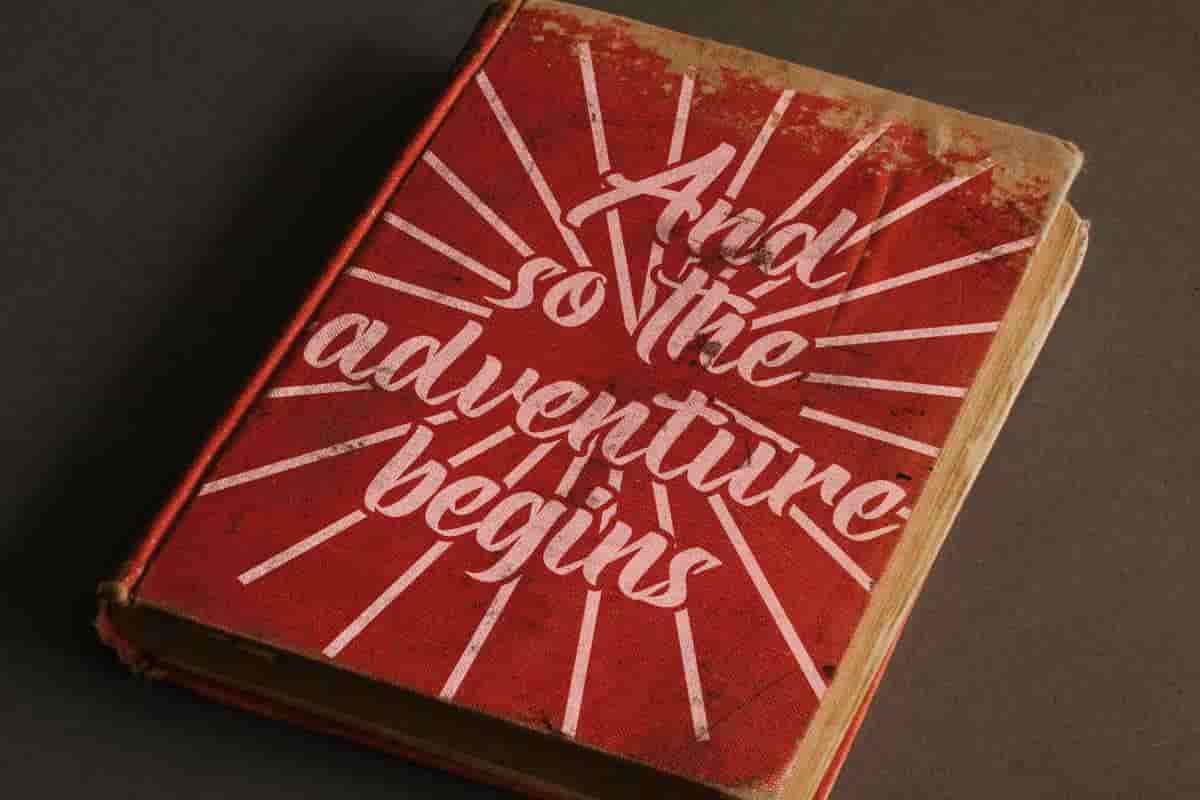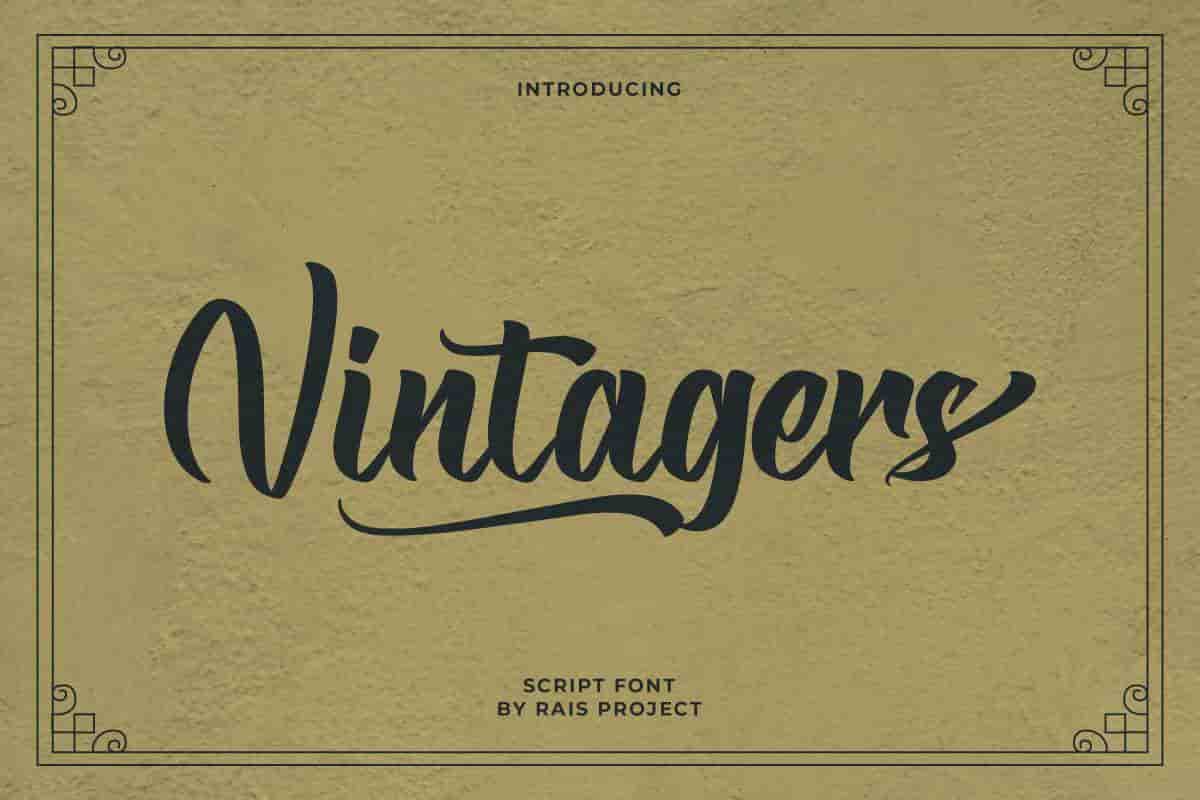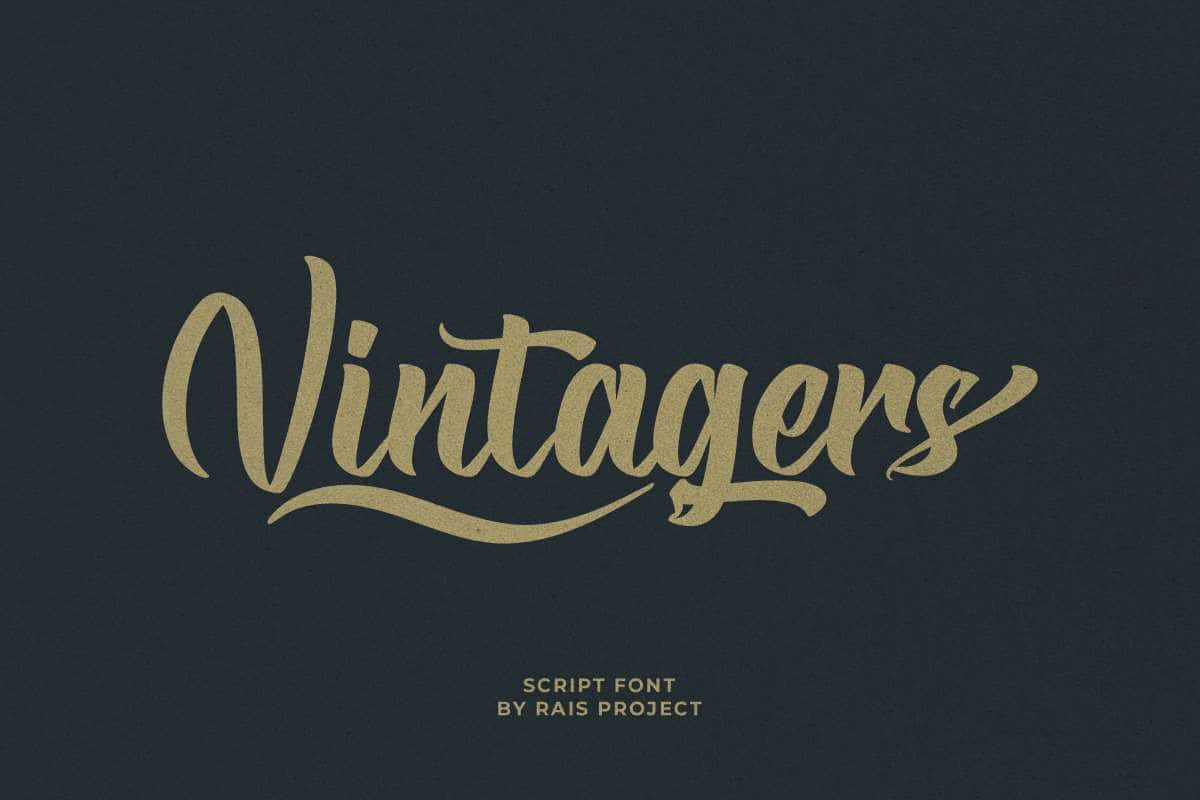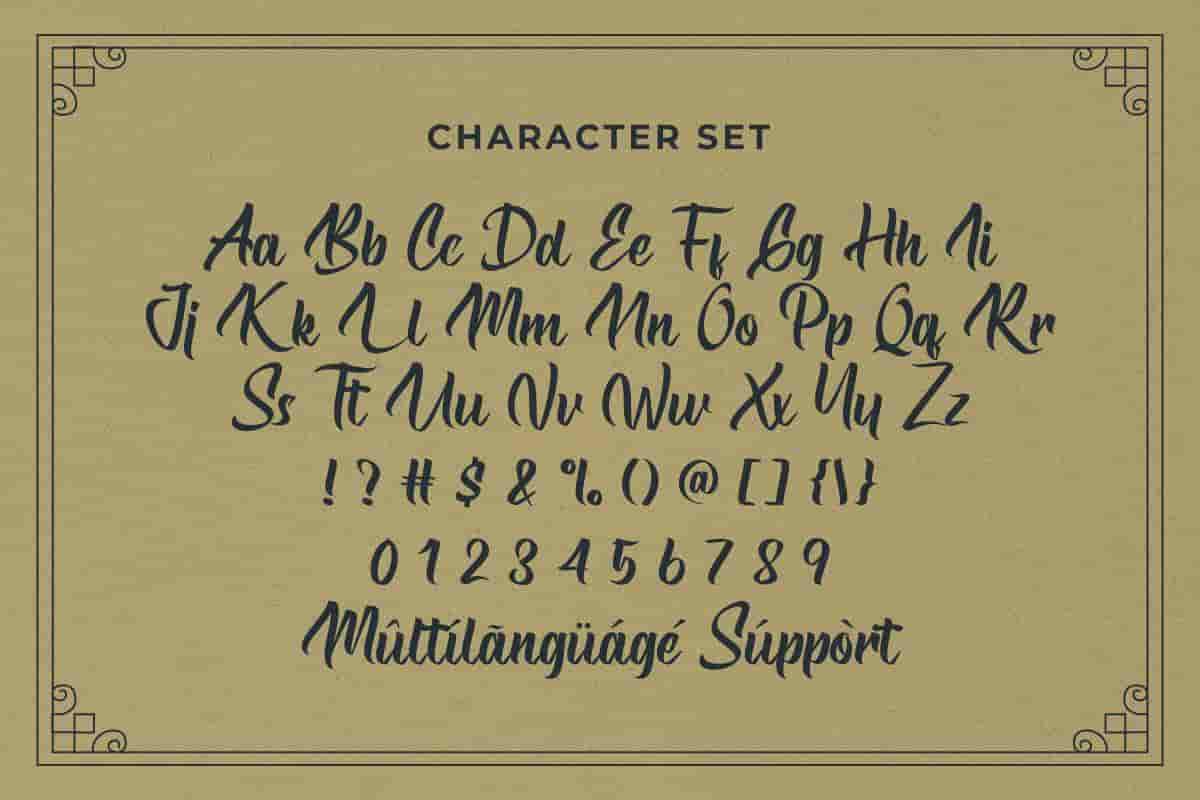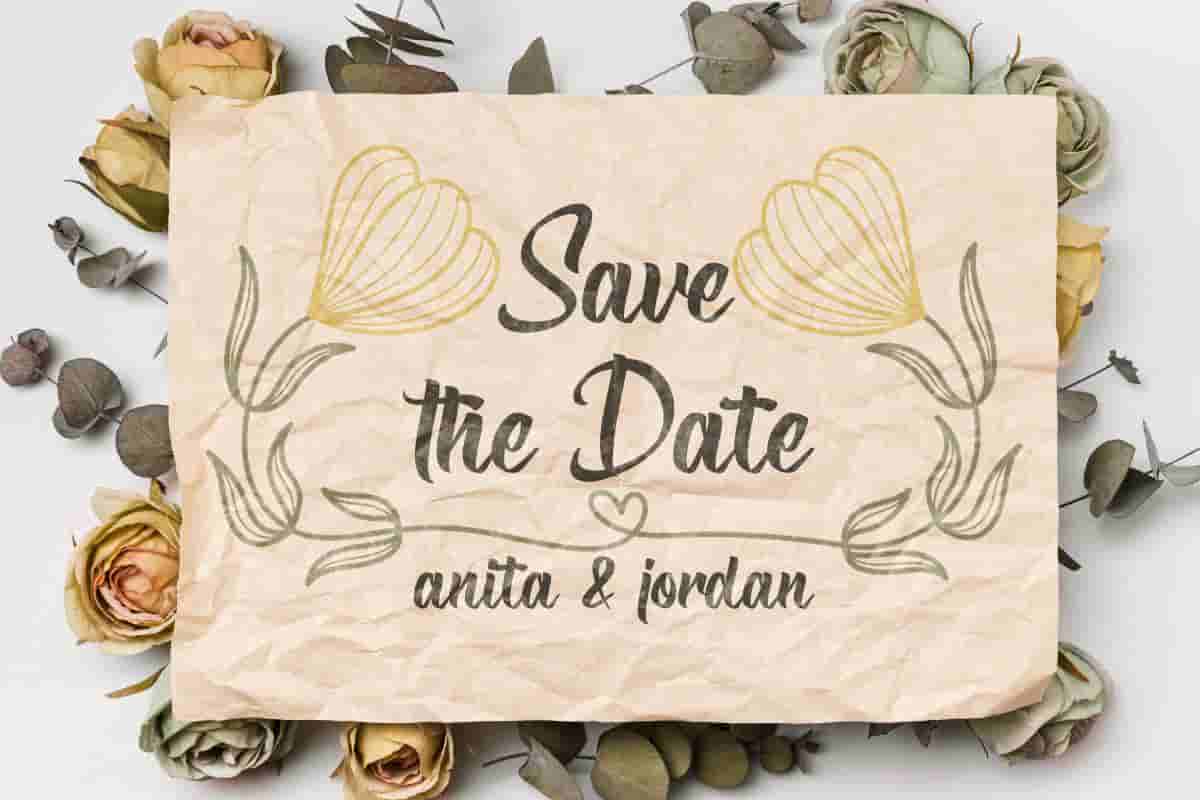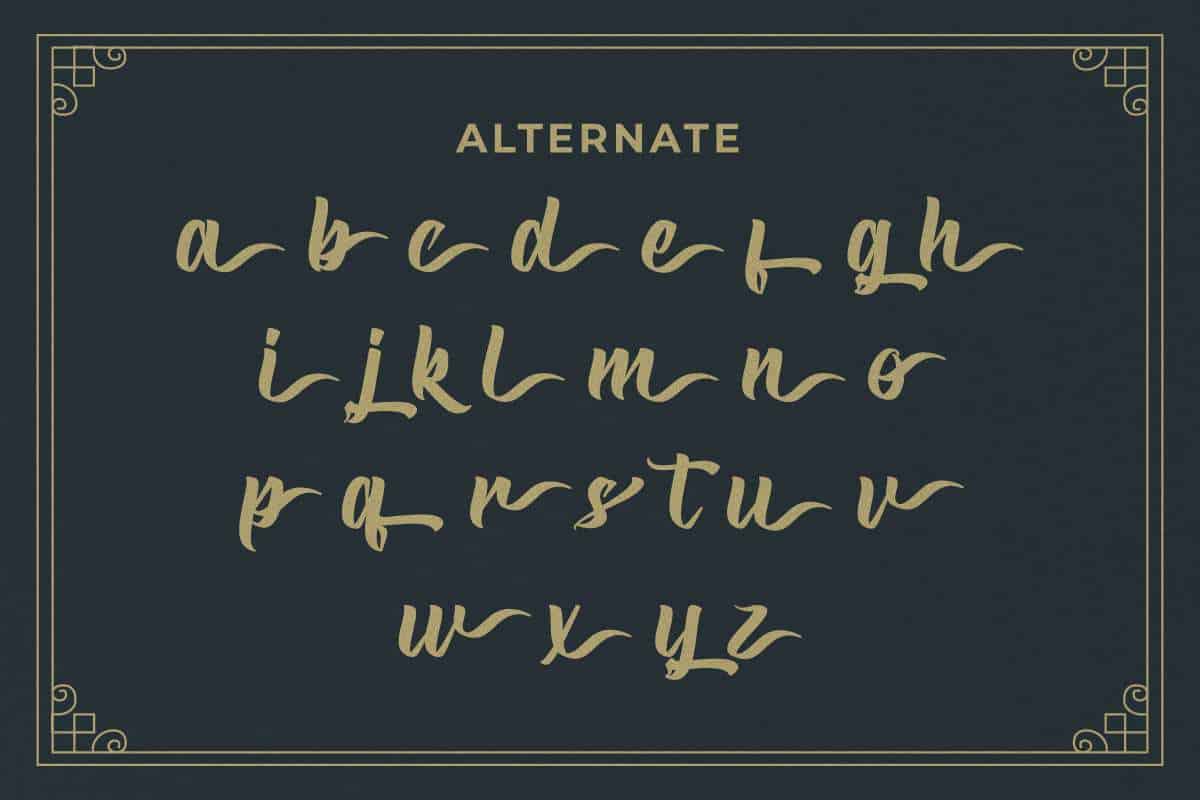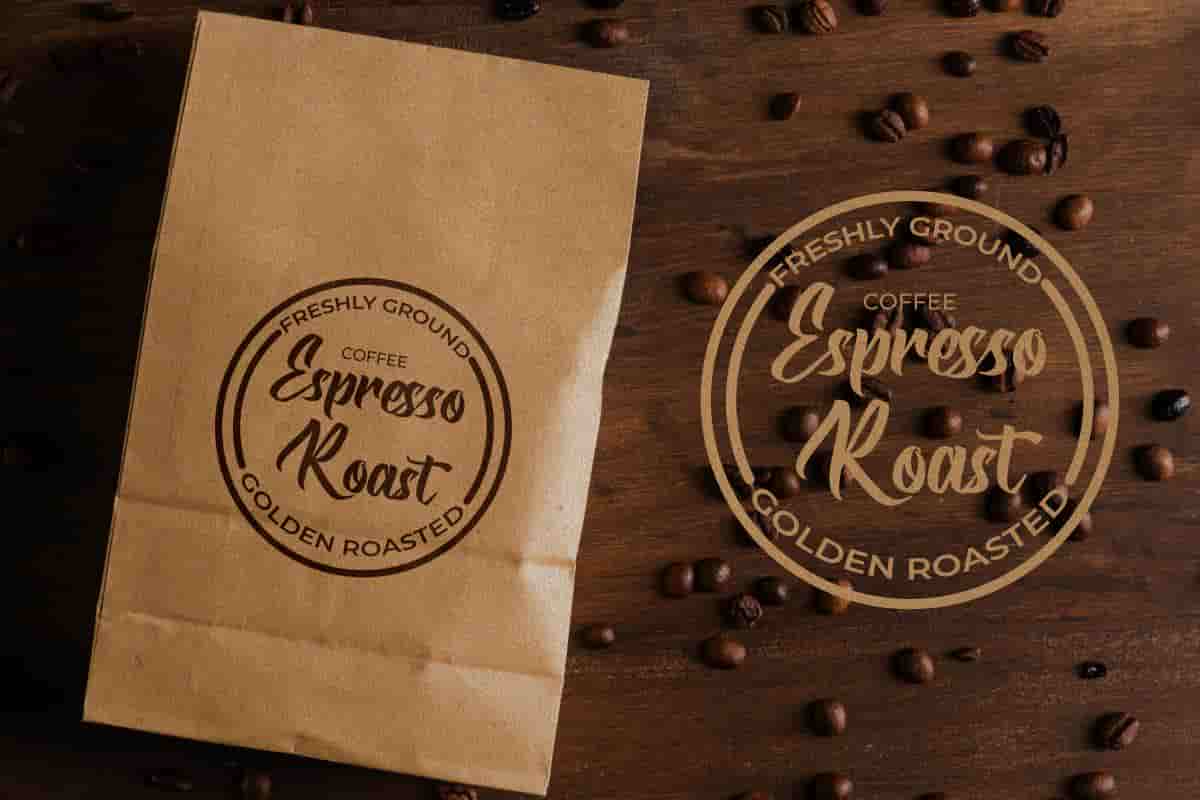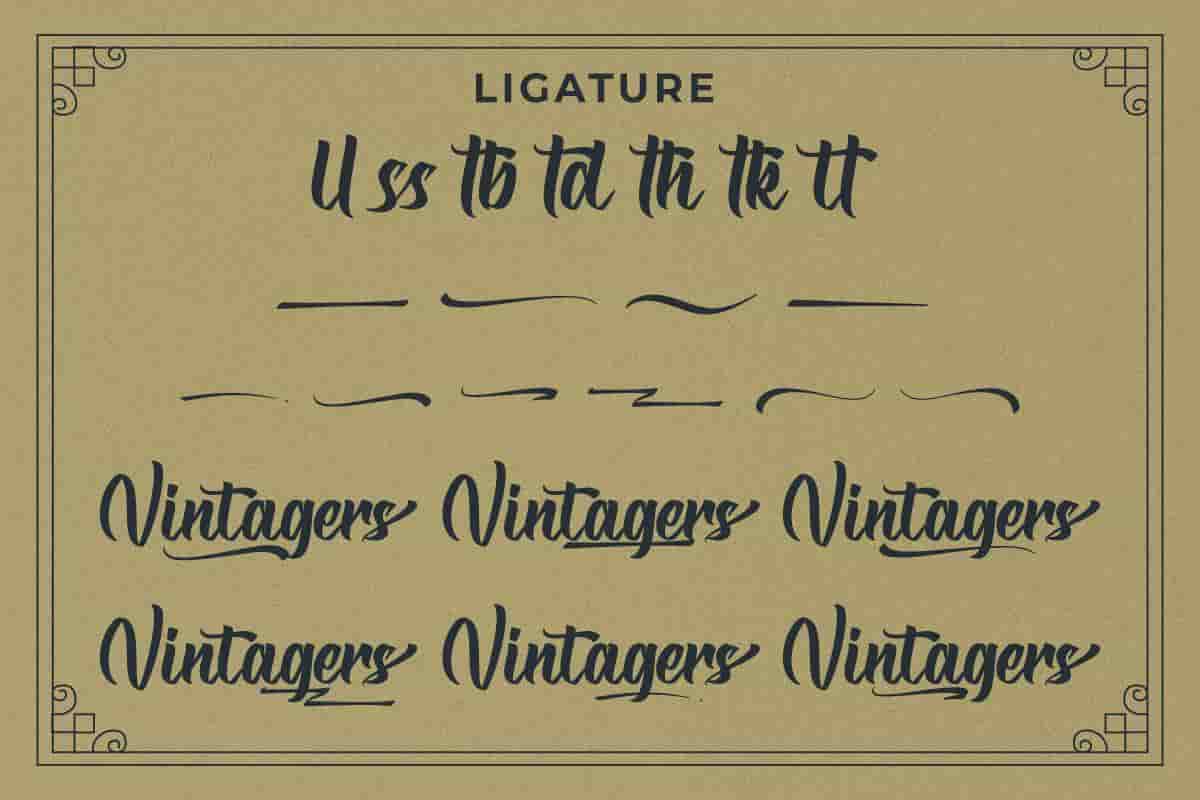
Vintagers Brush Font
Vintagers Font is a vintage brush font, designed by Rais Project. The font has style that is inspired from old classic vintage posters and advertising . It will be great for Games, Movie, Music, events, Cafe, Branding etc
[fontsampler id=117Vintagers Font remotely designed by RaisProject team in Indonesia. Te font has style that inspired from old classic vintage posters and advertising. The font handcrafted for any your special projects including : brandings, promotion, events, games, advertising, magazine, signage, invitation, stationery, social media posts, label, or and any projects that need unique style. The industries for this font is Events, Games, Magazine, Music, Movies, Cafe, Restaurant etc On the package You will get: